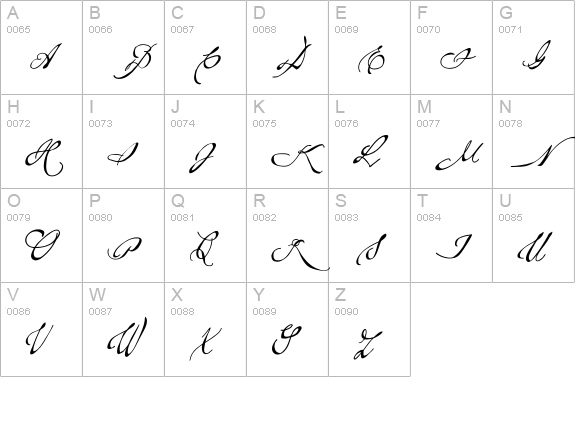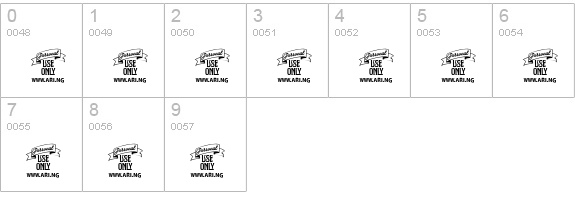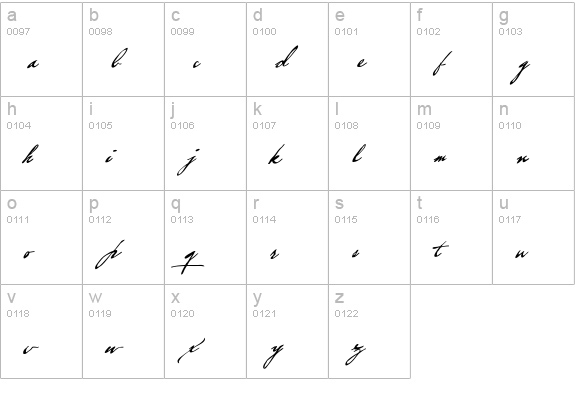
Brev Script Personal Use Font Details
Brev Script Personal Use is a stunningly beautiful and versatile font that is perfect for adding a touch of elegance and sophistication to any design project. With its delicate and flowing script style, this font is sure to captivate and enchant your audience. What sets Brev Script Personal Use apart is not only its impeccable design but also its availability for free. Yes, you read that right! This font is freely available to download at FontsMarket.com. Now, you can enhance your creative endeavors without having to worry about breaking the bank. Whether you're working on invitations, branding, advertisements, or any other creative project, Brev Script Personal Use will effortlessly elevate your design to new heights. Its smooth and graceful lines create a sense of refinement and elegance that is truly captivating. The versatility of Brev Script Personal Use is another aspect that makes it stand out. It can be used in a variety of contexts, from formal events to casual designs, making it a must-have addition to any designer's toolkit. Downloading Brev Script Personal Use from FontsMarket.com is quick and easy. Simply visit the website, find the font, and with just a few clicks, you'll have this exquisite font ready to use in your projects. So why wait? Experience the beauty and versatility of Brev Script Personal Use today. Download this remarkable font for free at FontsMarket.com and watch your designs come to life with a touch of elegance and sophistication.